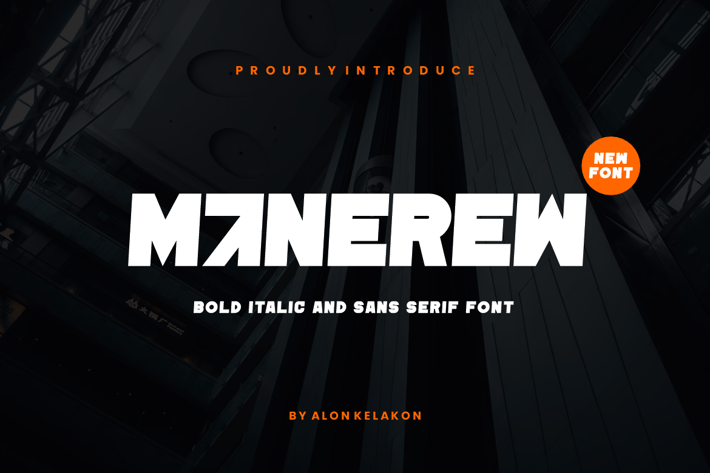
Manerew - Bold Sans Serif Font
Manerew - Bold Sans Serif Font Font is unique . Ready to use for your design like labeling, movie sceen, poster, movie title, gigs, album covers, logos, and much more.